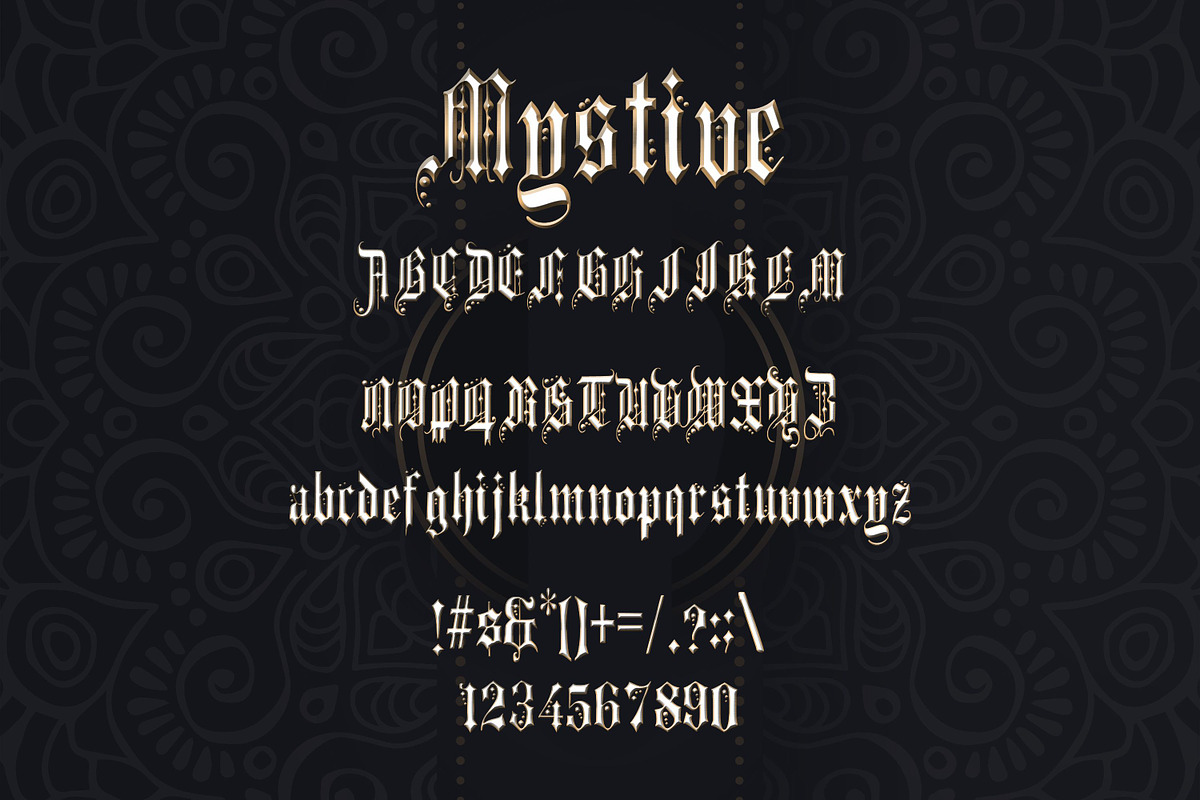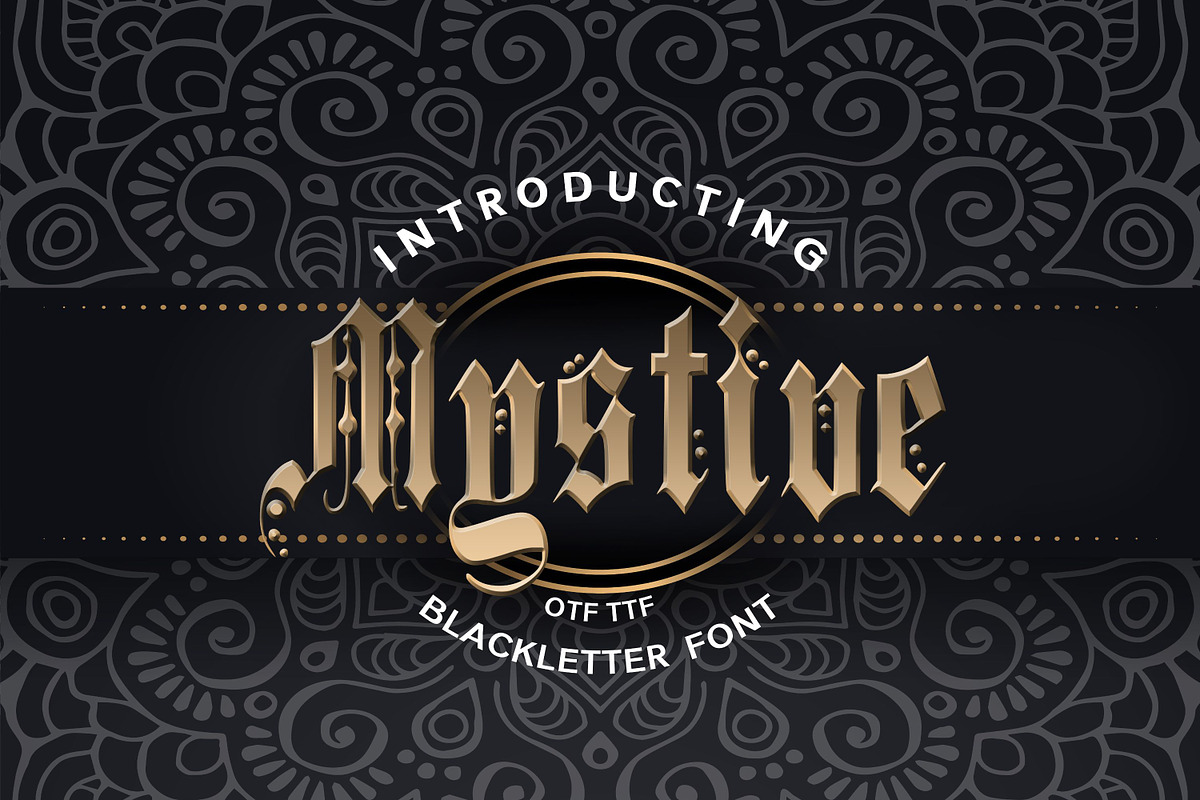
Mystive Blackletter Font
Mystive Blackletter Font by DmDesignsStoreArt is a font selected for branding, posters, packaging, typography.
Why Mystive Blackletter Font is worth a look
Mystive Blackletter Font by DmDesignsStoreArt fits naturally into Branding, posters, packaging, typography.